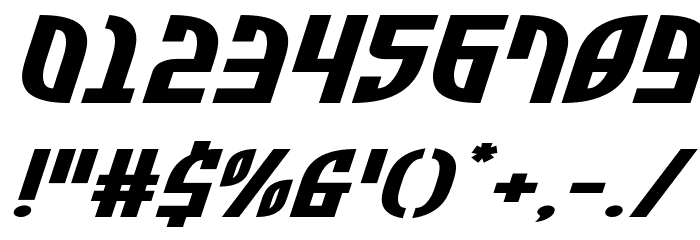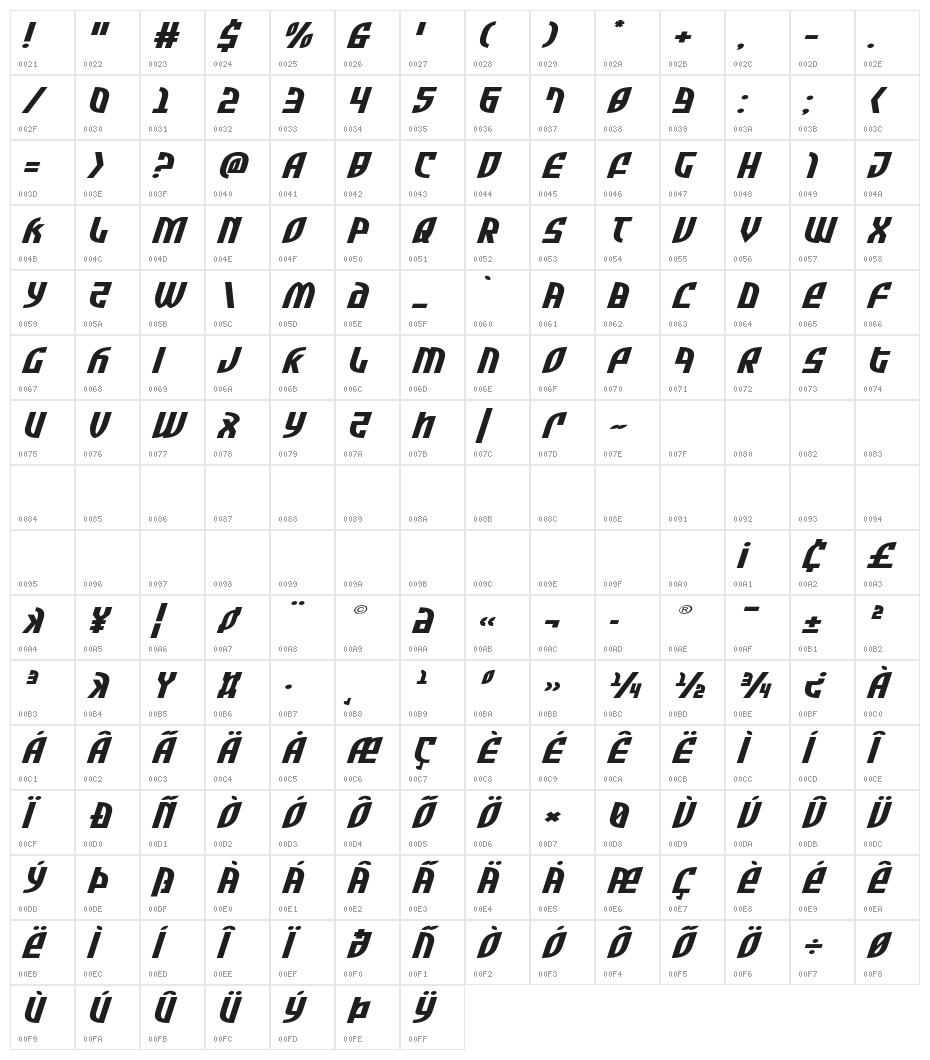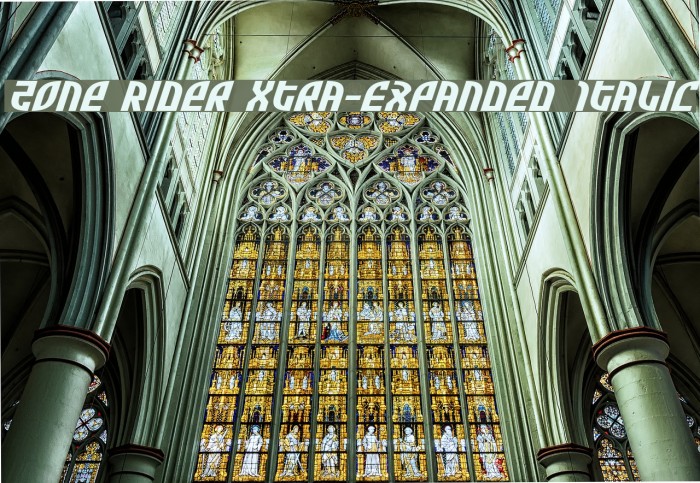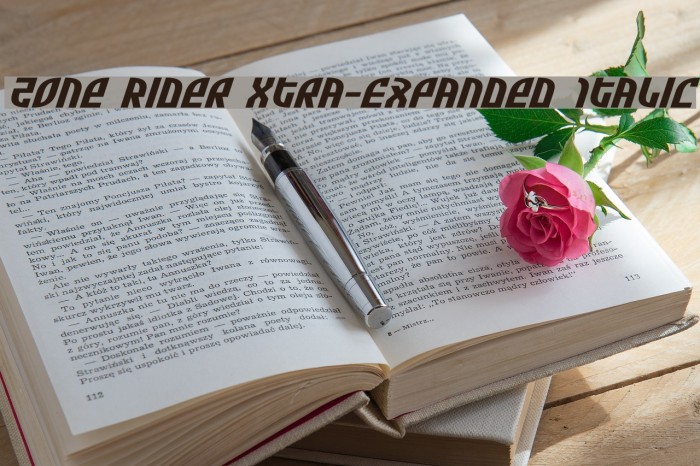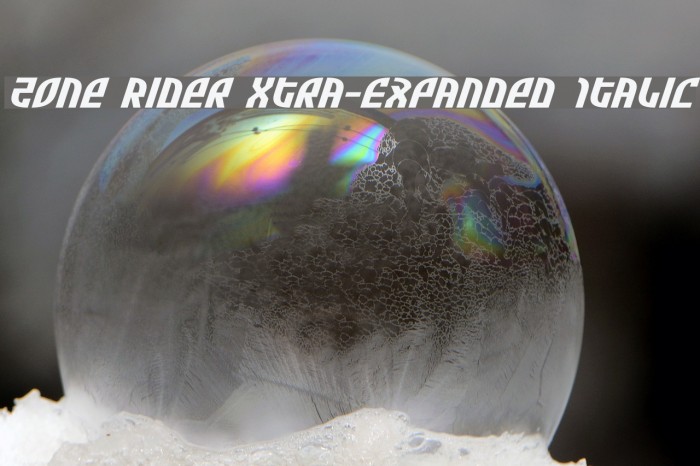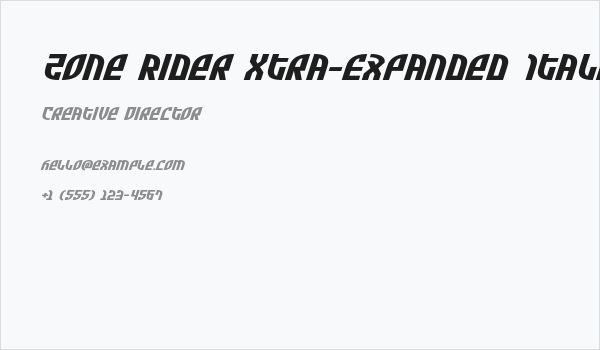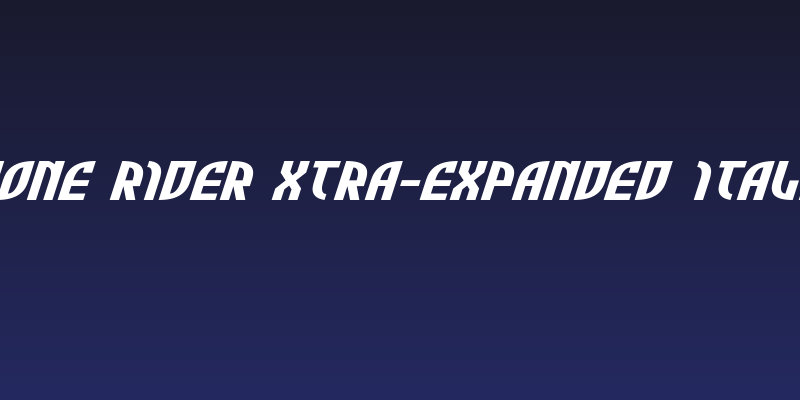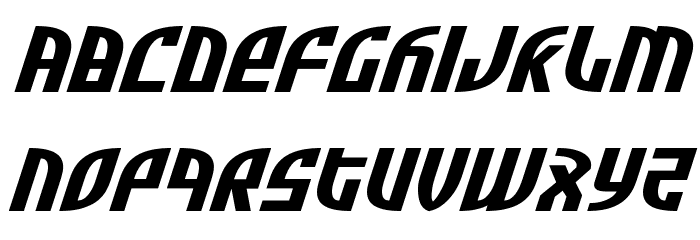
Zone Rider Xtra-Expanded Italic Font
Zone Rider Xtra-Expanded Italic Description
This font features a bold and dynamic style with an italic slant, giving it a sense of motion and energy. The characters are expanded, providing a wide and impactful appearance. The design incorporates sharp angles and clean lines, creating a futuristic and modern aesthetic. The uppercase and lowercase letters maintain a consistent style, with the numerals and special characters following suit. This font is well-suited for projects that require a strong visual presence and a contemporary feel.
| Proposed Projects | Ideal for sports branding, tech logos, futuristic posters, and dynamic headlines. |